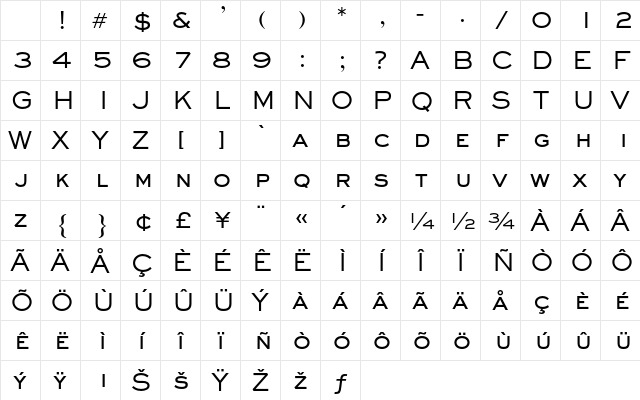
Sackers Gothic Medium AT takes a clean, functional approach - its unadorned letterforms prioritise legibility and work reliably across screen and print environments.
Font Pairing: Works well alongside a characterful serif or display font that can carry the expressive load while Sackers Gothic Medium AT handles the functional copy.
Pro Tip: Use Sackers Gothic Medium AT for UI labels, navigation, and short-form body copy where clean legibility is the priority.